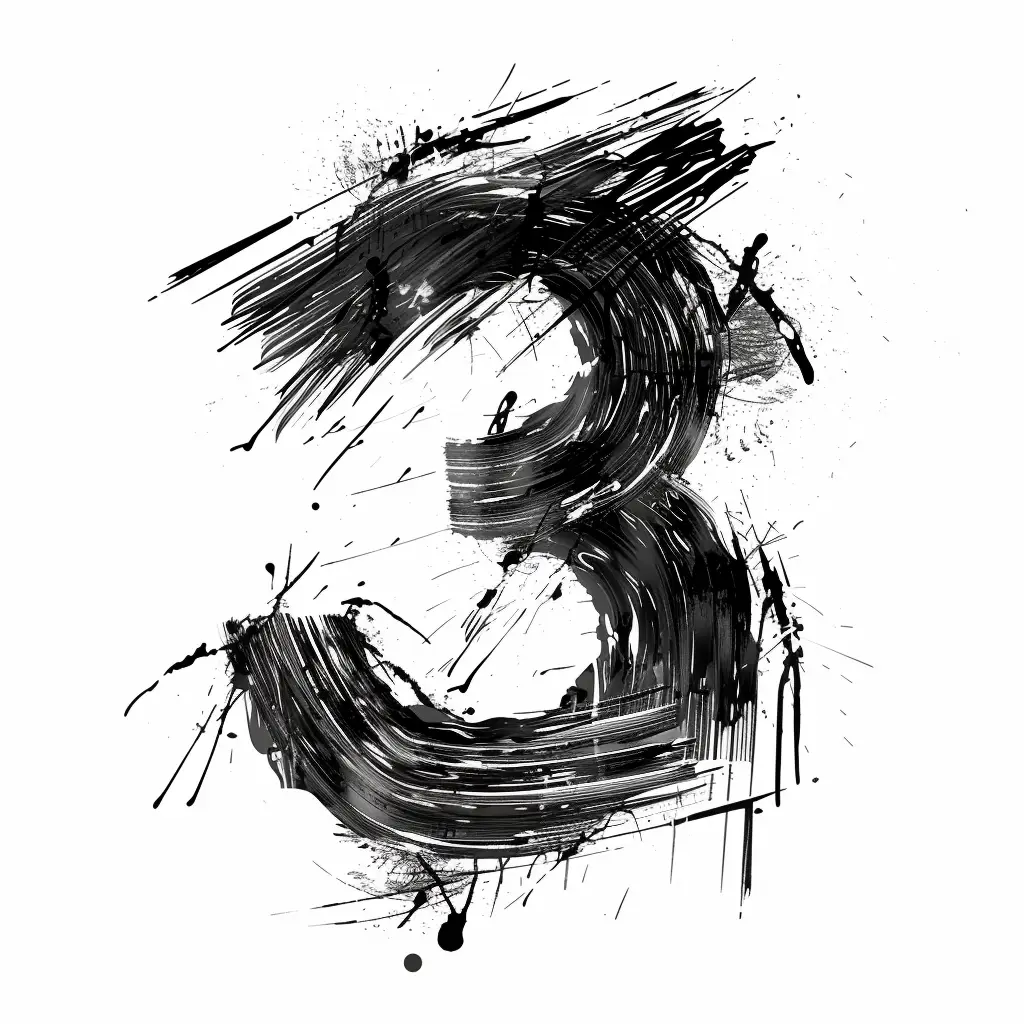
This image features a stylized, abstract representation of the number "3" rendered in bold black brushstrokes against a white background. The design incorporates dynamic, chaotic elements such as splatters, drips, and intersecting lines, creating a textured, expressive effect. The monochromatic color scheme (black and white) emphasizes the raw, artistic energy of the composition.